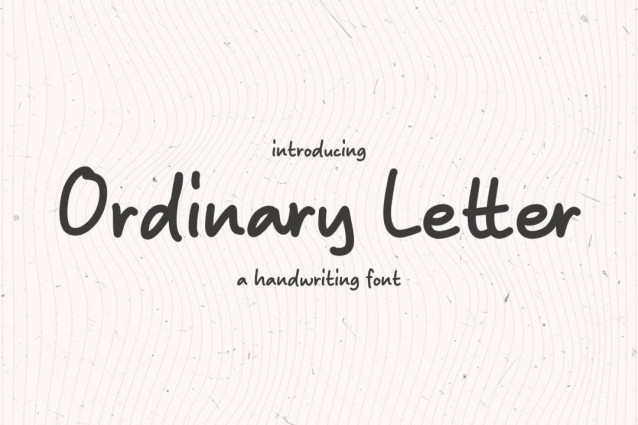
Ordinary Letter Font
Ordinary Letter Font is a simple and friendly handwritten font. Its natural and unique style makes it incredibly fitting to a large pool of designs. The only limit is your imagination!